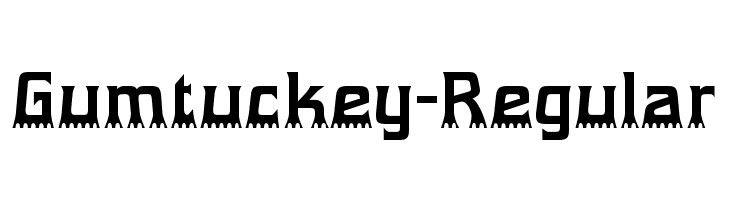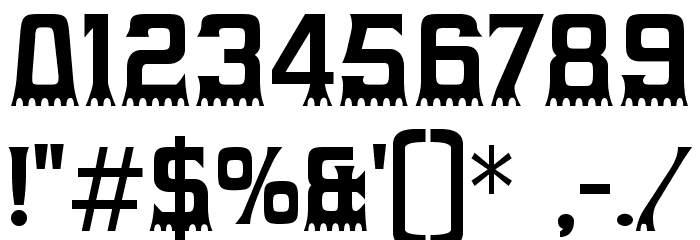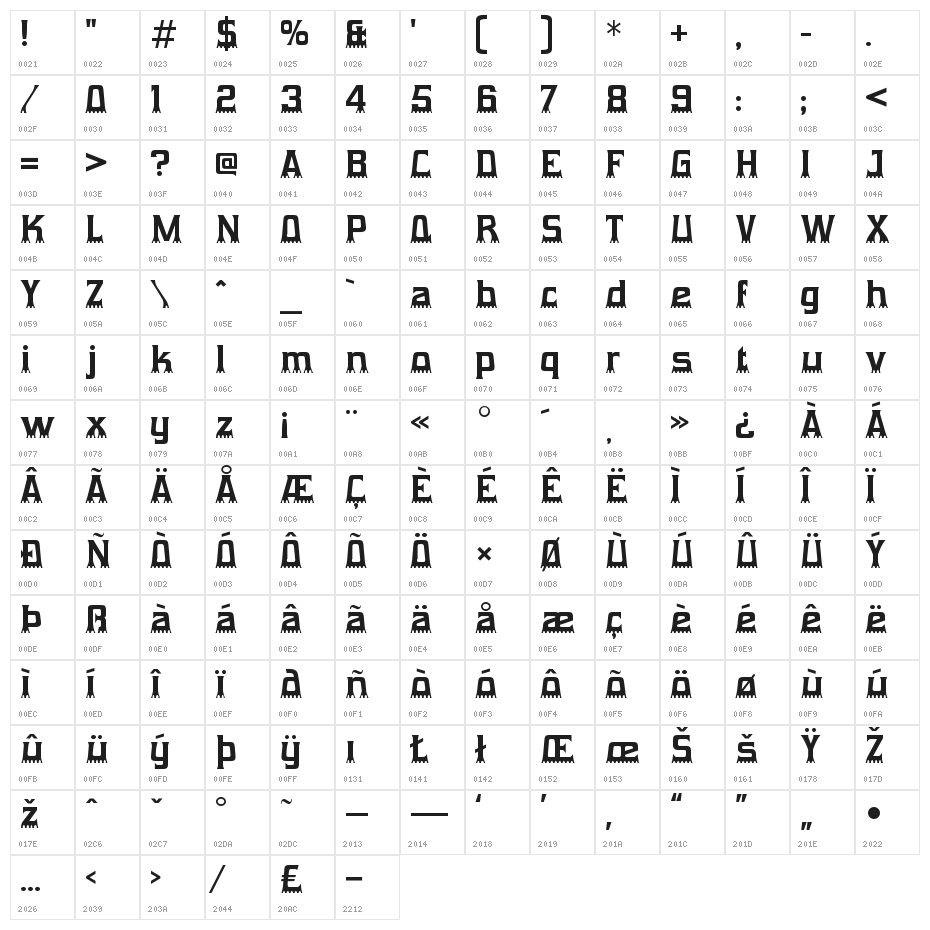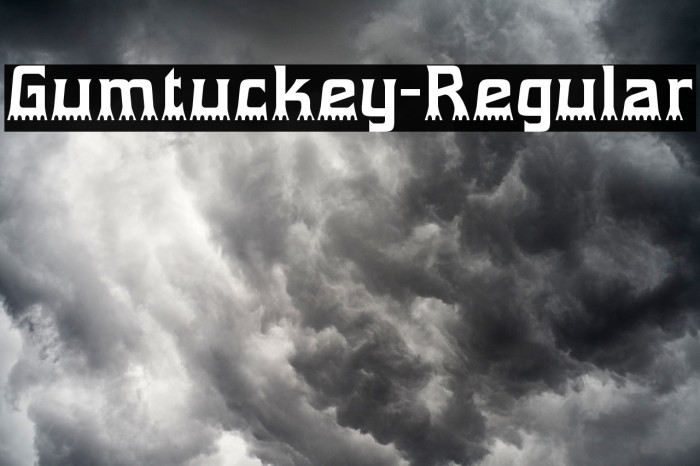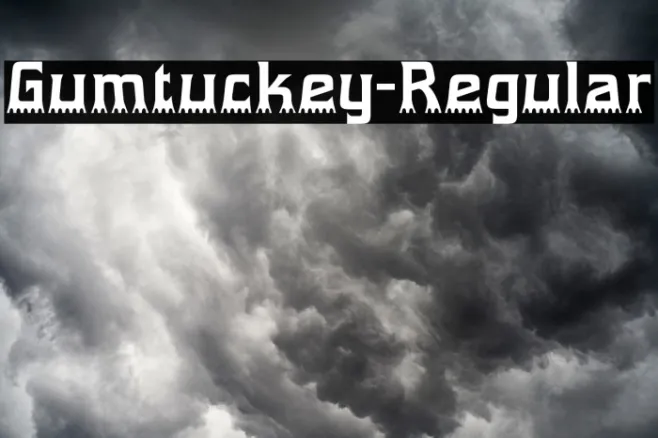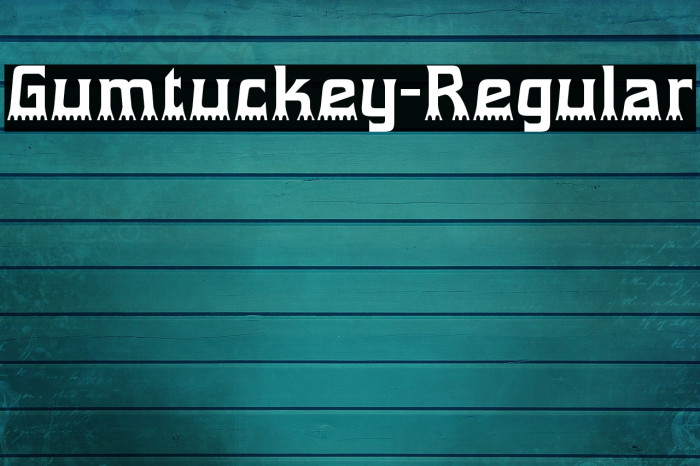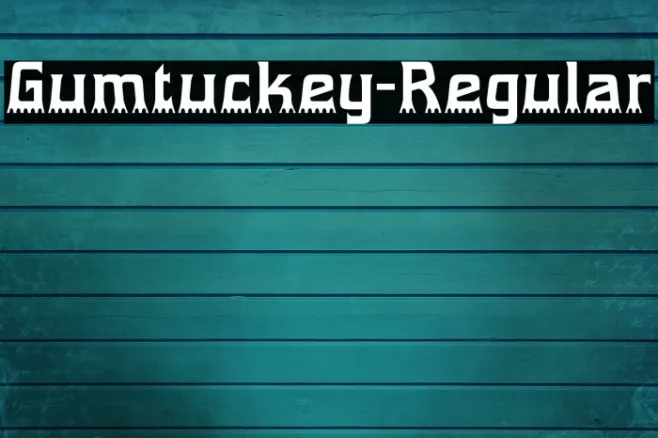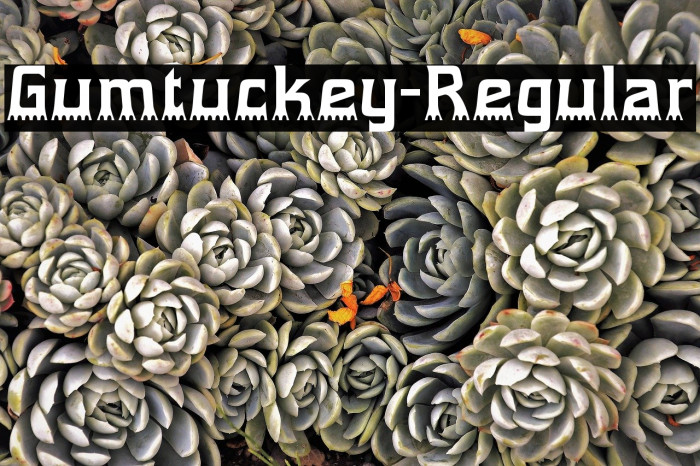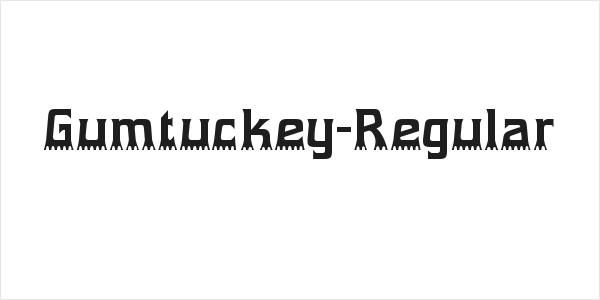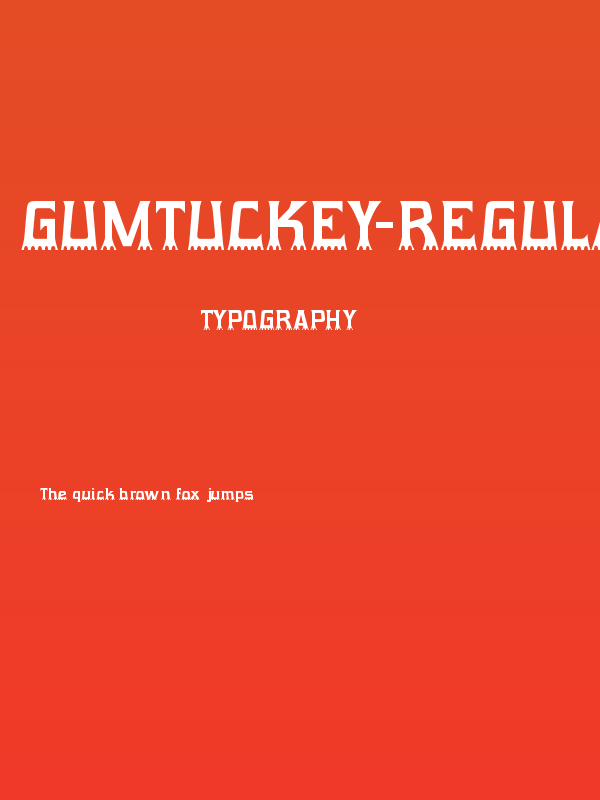
Gumtuckey-Regular Font
Gumtuckey-Regular Description
This font features a unique and playful design with a decorative, almost whimsical style. The characters have a distinct, bold appearance with a jagged, tooth-like pattern at the base of each letter, giving it a quirky and eye-catching look. The uppercase and lowercase letters maintain a consistent style, with the uppercase being slightly more pronounced. Numbers and special characters are designed to match the overall aesthetic, making the font suitable for creative and unconventional projects. The font's boldness and decorative elements make it stand out, while its uniformity ensures readability.
| Proposed Projects | Ideal for posters, children's books, playful branding, and creative event invitations. |